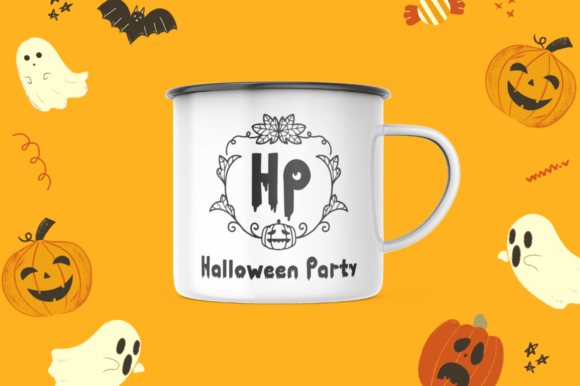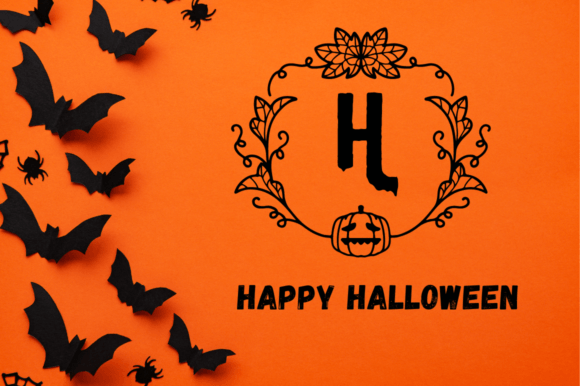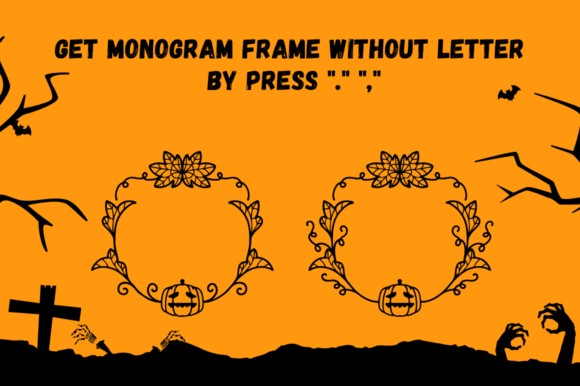
Introduction to Memon Monogram Font
Memon Monogram is a Halloween-themed monogram font, perfect for your Halloween special occasions, business designs, logos, branding, social media posts, and wedding cards.
Just simply change between uppercase and lowercase to see the different styles .